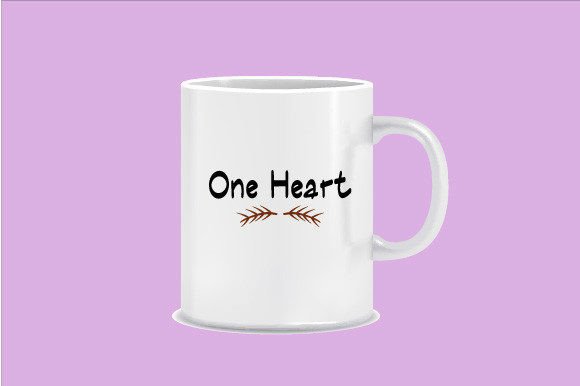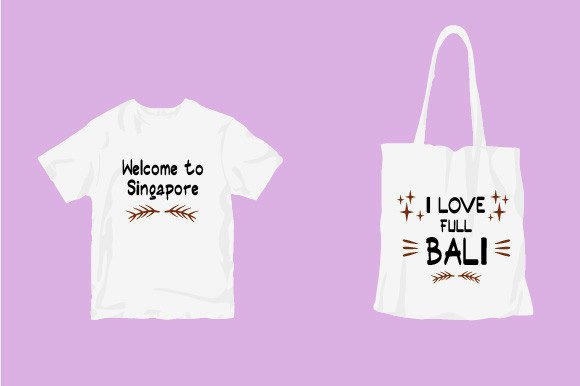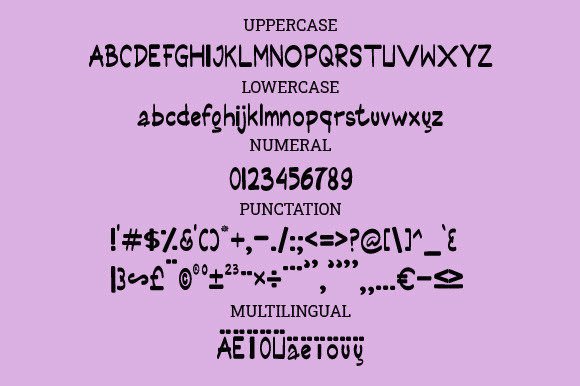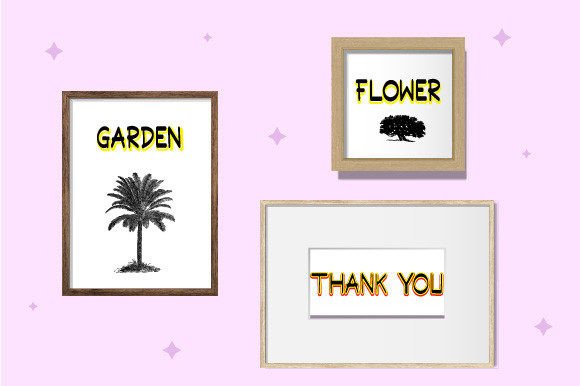
Introducing Florence Font: Elevate Your Designs with Elegance
Are you a designer or crafter looking for a unique and stylish font to elevate your creative projects? Look no further than Florence Font, a stunning display font that is sure to make your designs stand out. With its distinctive thin and thick strokes, Florence Font brings a dynamic and elegant touch to each letter, making it perfect for a variety of applications.
What is Florence Font?
Florence Font is a carefully crafted display font that features thin and thick strokes, creating a beautiful contrast that adds visual interest to any design. The font’s elegant letterforms are designed to be versatile, making it suitable for a range of projects, from home decor to screen printing on t-shirts, clothes, and more.
Key Features of Florence Font
- Dynamic and Elegant Design: Florence Font boasts a unique combination of thin and thick strokes, creating a dynamic and elegant look that is sure to capture attention.
- Versatile: This font is perfect for a variety of applications, including home decor, screen printing, and more.
- Easy to Read: Despite its elegant design, Florence Font remains easy to read, making it perfect for use in both digital and print materials.
Uses for Florence Font
Florence Font is an incredibly versatile font that can be used in a wide range of creative projects. Here are some ideas to get you started:
- Home Decor: Use Florence Font to add a touch of elegance to your home decor designs, such as wall art, signs, and more.
- Screen Printing: Create stunning screen printed designs for t-shirts, clothes, and other apparel using Florence Font.
- Digital Designs: Use Florence Font in your digital designs, such as social media graphics, blog posts, and more.
- Crafting: Add a personal touch to your crafting projects, such as handmade cards, gift tags, and more, with Florence Font.
Tips for Using Florence Font
To get the most out of Florence Font, here are some tips to keep in mind:
- Experiment with Colors: Florence Font looks stunning in a variety of colors, so don’t be afraid to experiment and find the perfect combination for your design.
- Play with Sizes: Florence Font can be used in a range of sizes, from large display fonts to smaller body text.
- Combine with Other Fonts: Try pairing Florence Font with other fonts to create a unique and visually interesting design.
Florence Font is a beautiful and versatile display font that is perfect for designers and crafters looking to add a touch of elegance to their creative projects. With its dynamic and elegant design, Florence Font is sure to elevate your designs and make them stand out. Whether you’re working on home decor, screen printing, or digital designs, Florence Font is a great choice.
Get Creative with Florence Font